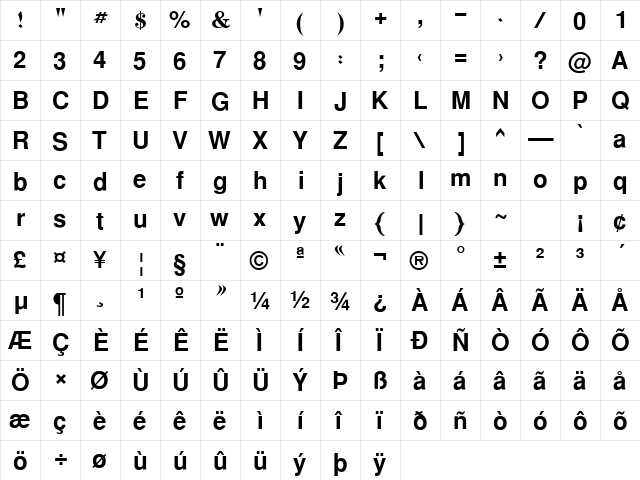
WinSoft Naskh Pro Bold
| Foundry | WinSoft S. A. |
| Designer | Mourad Boutros |
Design Context for WinSoft Naskh Pro Typeface
WinSoft Naskh Pro takes a measured approach to typography — its balanced proportions and neutral character make it a reliable workhorse for both digital and print work. The heavy weight commands attention and anchors typographic hierarchies.
Pro Tip: Pair WinSoft Naskh Pro with a font of contrasting weight or personality to build a more expressive typographic hierarchy.